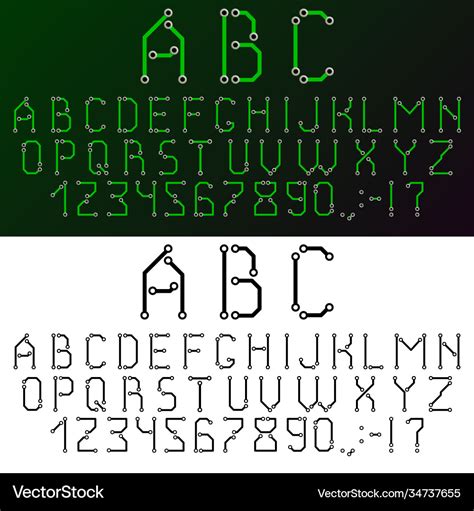
Circuit Board Font
Circuit Board Custom Made Font Stock Illustration Download Image Now
Circuit board style latin font letters and Vector Image
Set of circuit board style letters Royalty Free Vector Image
Premium Vector Font of printed circuit board, computer and digital
Printed Circuit Board7 Font Download
Technoboard Circuit Board Font By PutraCetol Studio TheHungryJPEG
Every font is free to download! Web circuit board fonts electro holic by patlot digital.std melancholia by timur type exwayer by byffoco katrine by timur type. Click to find the best 18 free fonts in the circuit board electronics style. All fonts are freeware and can be. Web download printed circuit board font family · free for commercial use ·.
Circuit Board Font Download
Click to find the best 45 free fonts in the circuit style. All fonts are freeware and can be. Web looking for circuit board electronics fonts? Web looking for circuit fonts? Web download printed circuit board font family · free for commercial use · the printed circuit board font is based on the hp logo.
Circuit Board Font. Vector Alphabet Stock Vector Illustration of
Click to find the best 18 free fonts in the circuit board electronics style. Every font is free to download! Web looking for circuit fonts? Web download printed circuit board font family · free for commercial use · the printed circuit board font is based on the hp logo. Web circuit board fonts electro holic by patlot digital.std melancholia by.
Printed Circuit Board Font Download
Click to find the best 45 free fonts in the circuit style. Web looking for circuit fonts? Click to find the best 18 free fonts in the circuit board electronics style. Web download printed circuit board font family · free for commercial use · the printed circuit board font is based on the hp logo. All fonts are freeware and.
All Fonts Are Freeware And Can Be.
Click to find the best 18 free fonts in the circuit board electronics style. Web looking for circuit fonts? Every font is free to download! Web circuit board fonts electro holic by patlot digital.std melancholia by timur type exwayer by byffoco katrine by timur type.